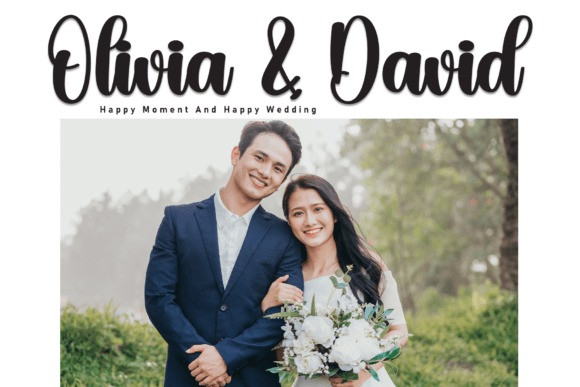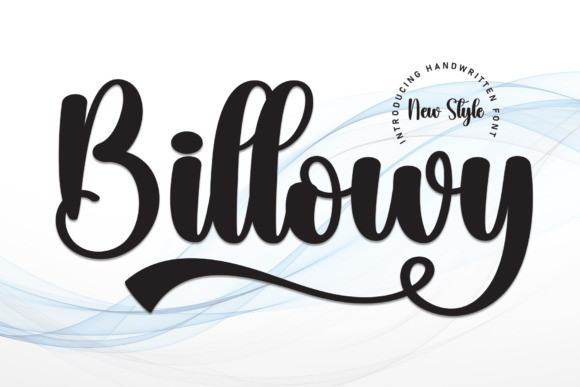
Billowy Script Font
Billowy Script Font is a sweet and friendly handwritten font. Its natural and unique style makes it incredibly fitting to a large pool of designs. The only limit isyour imagination!